We noticed ink-trap fonts rising in use with lots of companies and products rebranding to fresh, slightly digital-looking logo types with the use of ink trap fonts.
We personally love this trending design style, so we collected everything you need to know about it — from the problem that led to their creation, to where to find them, and tips to use them in designs.
What are ink-trap fonts?
The term “ink trap” refers to areas or tight corners in letterforms where excess ink would pool during printing. It caused blurring on the finished pages, so designers created tiny notches or cuts in the letter shapes to “trap” the ink and prevent it from bleeding.
Ink-trap fonts have these distinctive notches in their corners — for example, in the angles of a “b” or the inside of a “v” — making them more exaggerated and sharp-edged than typical typefaces. (See the comparison image below.)
Most ink-trap fonts you’ll find are sans-serif, but you can find serif ink-trap fonts as well.
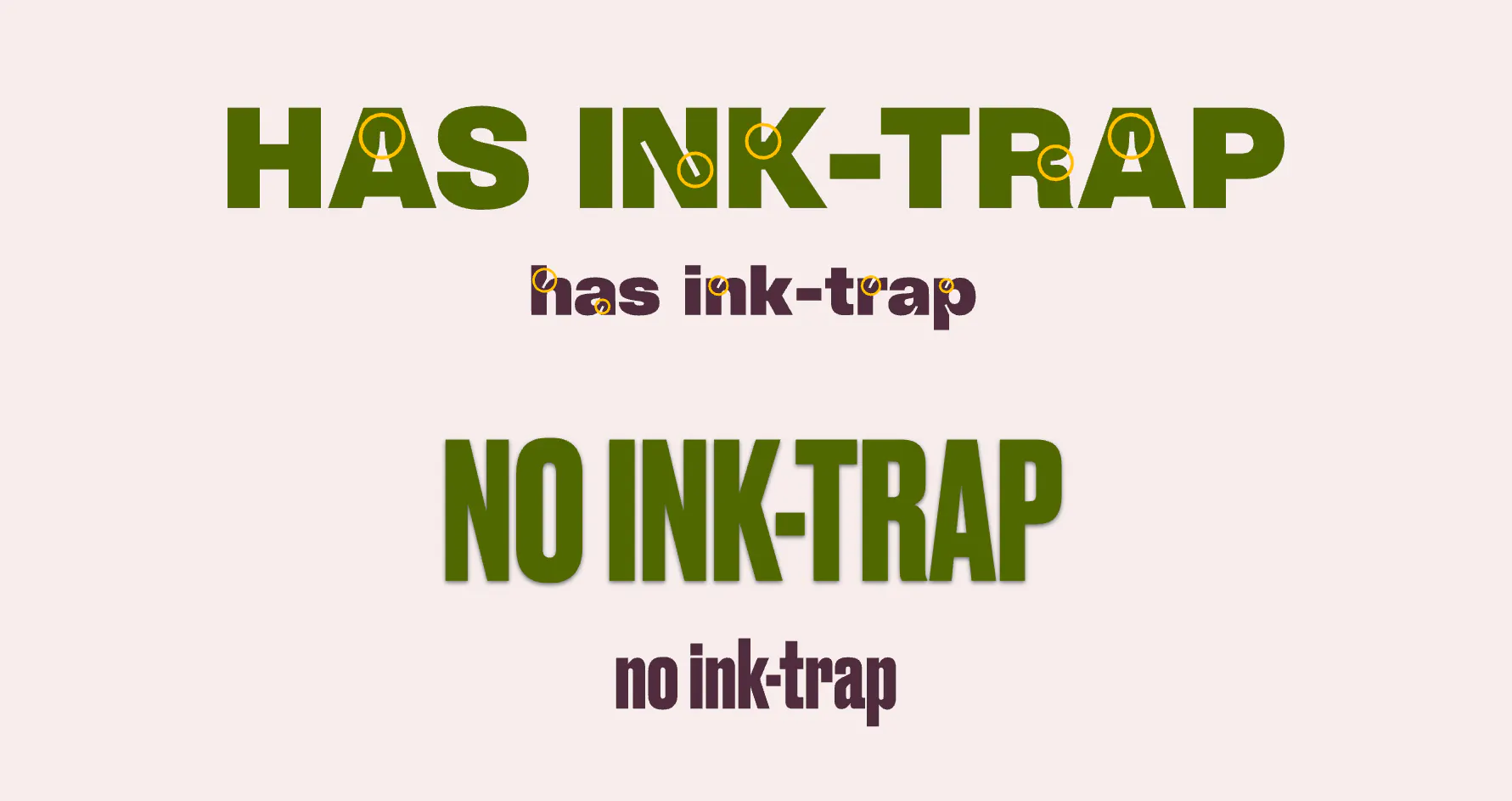
Ink traps come in different sizes depending on the intended use of the typeface.
- Small ink traps are subtle they preserve legibility without dramatically altering the aesthetic of the typeface.
- Bigger and deeper ink traps are more exaggerated. These exaggerated forms add a bold and edgy visual touch to modern designs.
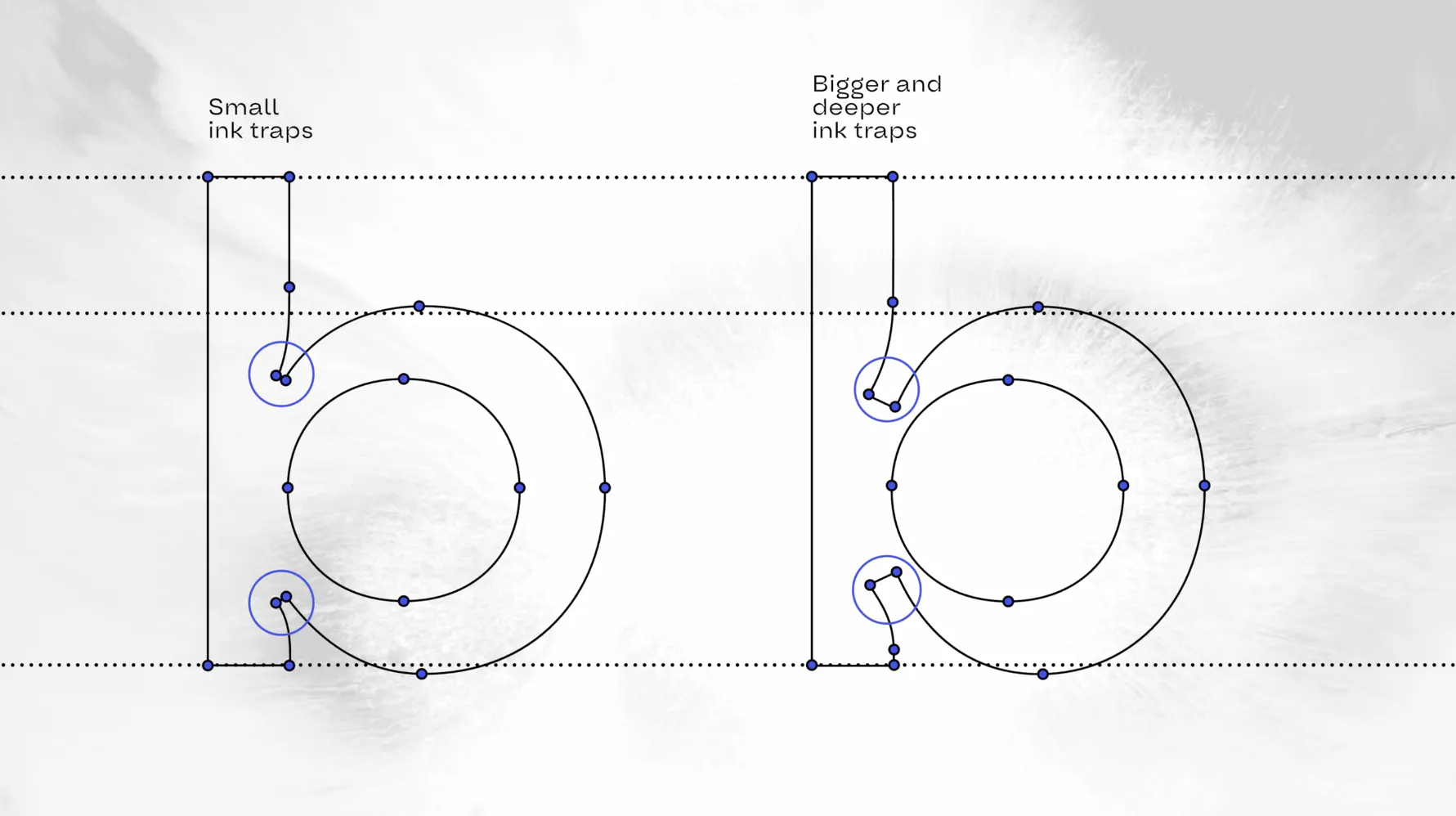
The shape of an ink trap can also vary depending on the style you want:
- Straight ink traps feature angular cuts. They create a sharp, somewhat mechanical feel. They often give a more industrial or utilitarian aesthetic, making them great for tech-forward or brutalist designs.
- Oval ink traps are more fluid and organic, offering a softer, more playful tone. Their rounded forms blend more naturally with the letters curves.
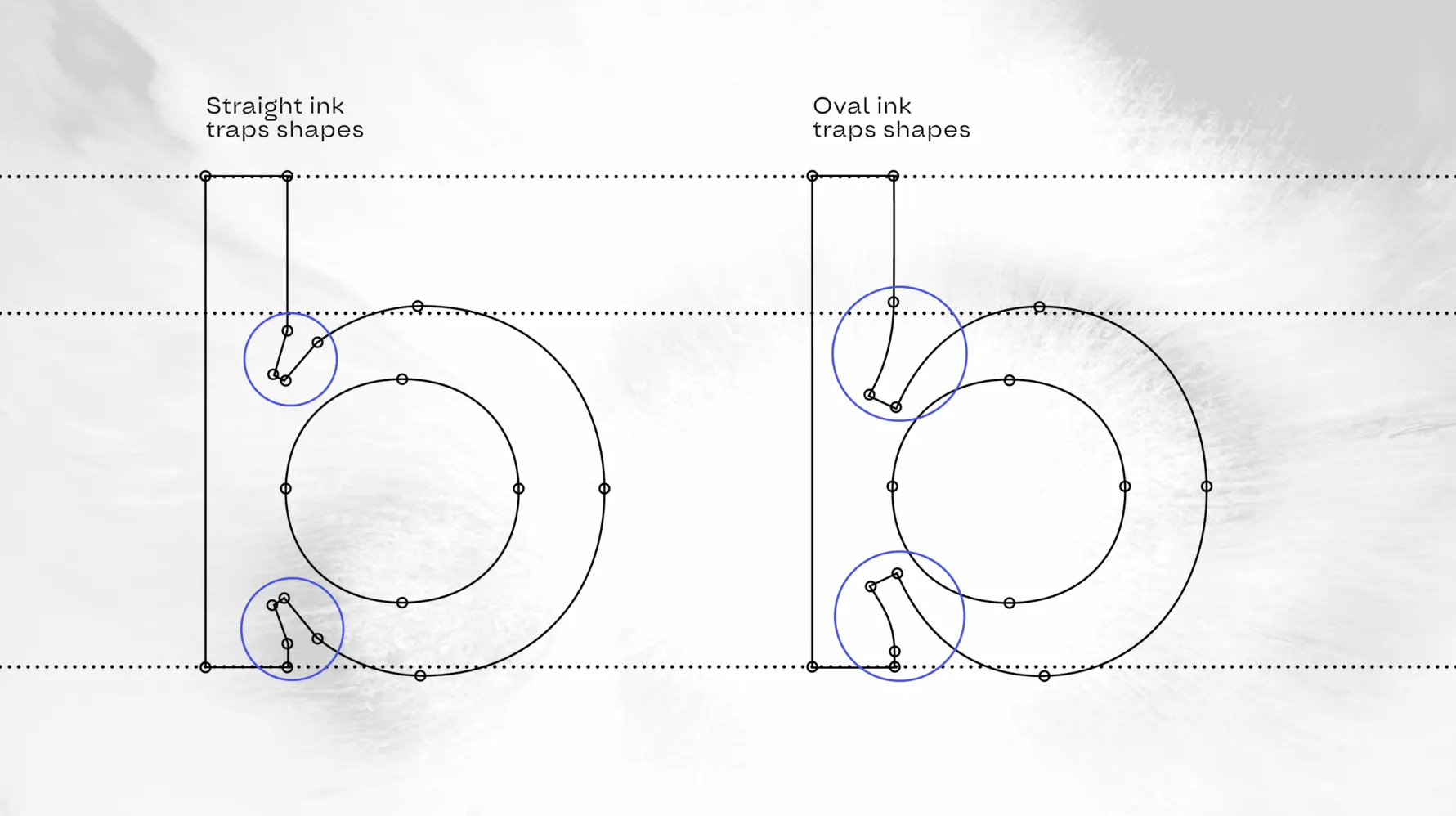
Why were ink-trap fonts invented?
Ink-trap fonts were originally designed for physical printing with ink to prevent ink bleed. The notches would “trap” the ink to help prevent ink spread or bleeding. This kept the letters sharp and legible.
This was when the ink would bleed during printing and was a common problem for small prints. The corners were too condensed, causing blurred edges and affecting readability.
Why do we love ink-trap fonts?
So they were invented for practical purposes, yet today we appreciate them for their bold aesthetic. They add a unique extra spice to otherwise standard text.
Plus, they’re extremely versatile and are being used in everything from professional branding and websites to packaging and poster design. And while originally designed for body text and post-script usage, they’ve become especially popular as striking display fonts.
Ink trap font examples
You can tell ink-trap fonts apart from standard by the notches at the corners.
- Agdasima
- Aldrich
- Aloke Gron
- Ambidexter
- Bricolage Grotesque
- Climate Crisis
- Daft Sans VF
- DT Getai Grotesk
- Edgeway Pro
- Growth Tracks
- Vodigl
- Naira
Design tips: How to design with ink-trap fonts
Ink-trap fonts work best in display sizes for titles and headers — anywhere your text needs to be a focal point. Here are some tips to use them effectively:
1. Go big
Maximize the strong visual impact of these fonts by using them as headers in extra-large text. A larger size helps to emphasize the notches and angles, making them a key part of the entire composition.
2. Layer for depth and extra visual interest
One of the benefits of bold ink-trap fonts being highly legible means they work great with text effects. Try adding an outline or drop shadow to make it pop. You can do this easily with Kittl’s text effects add a drop shadow, line shadow, block shadow, or even 3D shadow with just a click.
3. Balance it out
Now this tip pertains to your entire composition pair your ink-trap font with a simpler body text font. This helps keep your design polished and balanced. Plus it helps create a visual hierarchy.
4. Get creative with where you use ink-trap fonts
Don’t assume the use case for ink-trap fonts is limited. They’re clean, modern, and extremely versatile. Use them in everything from posters, social graphics, product packaging, or branding, anywhere you want unique header text that pops.